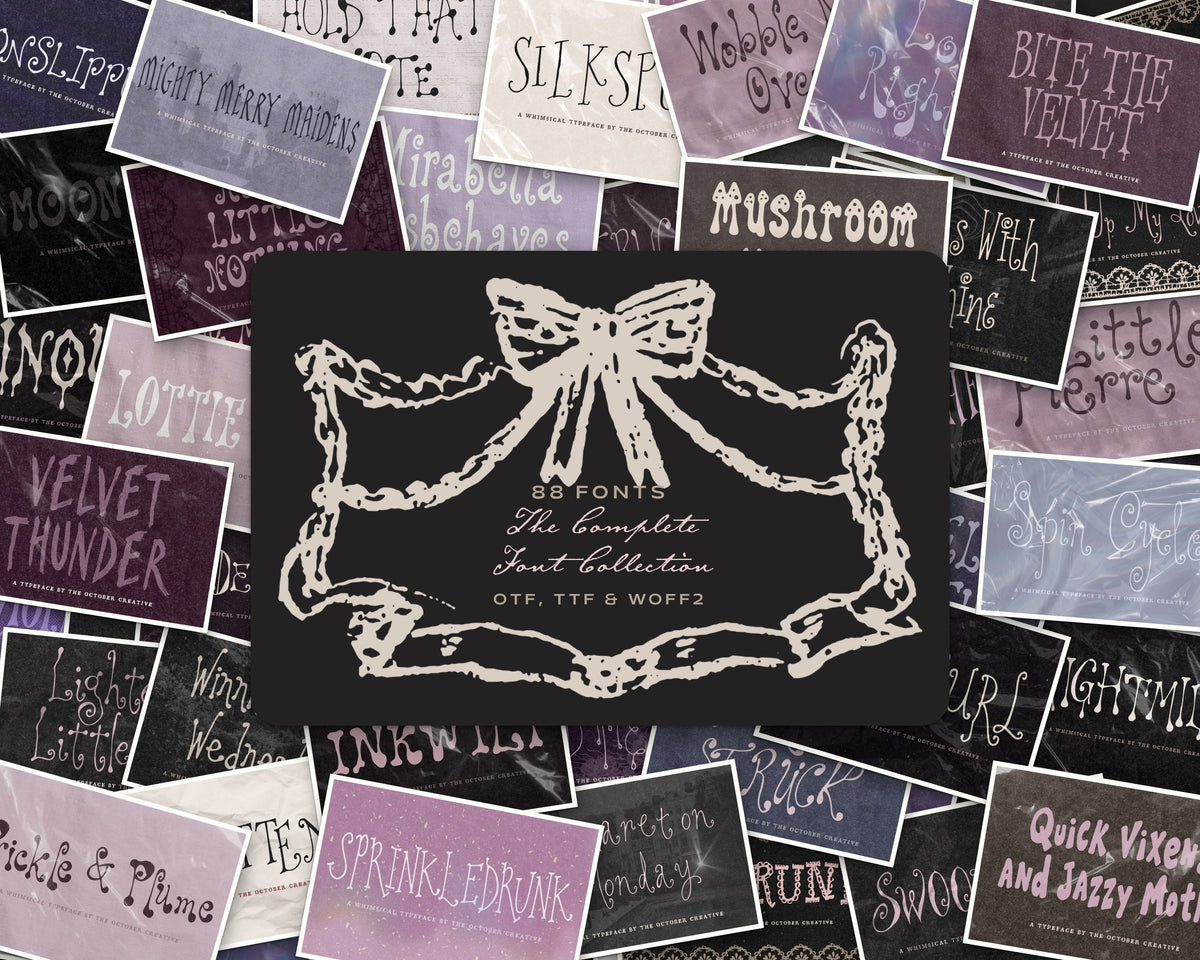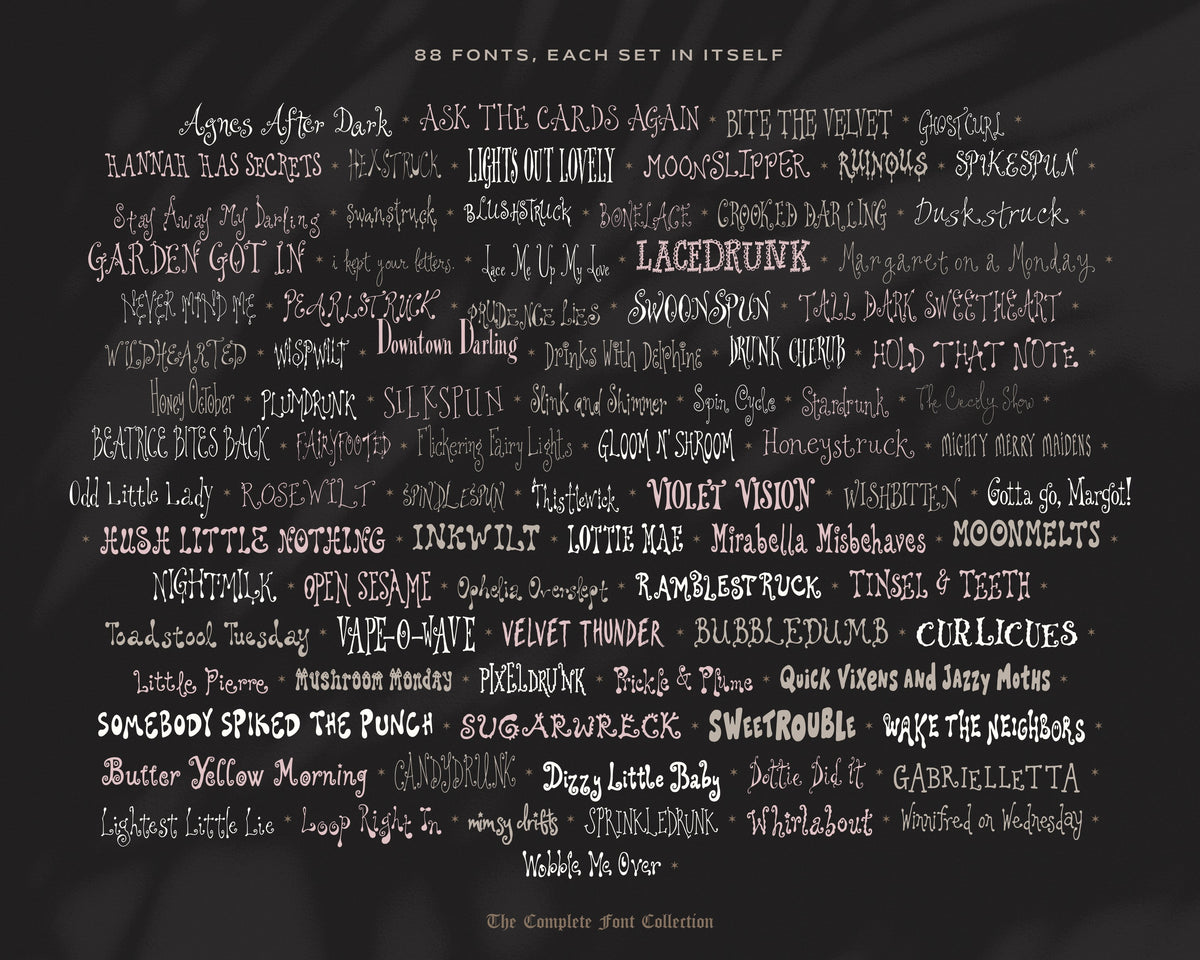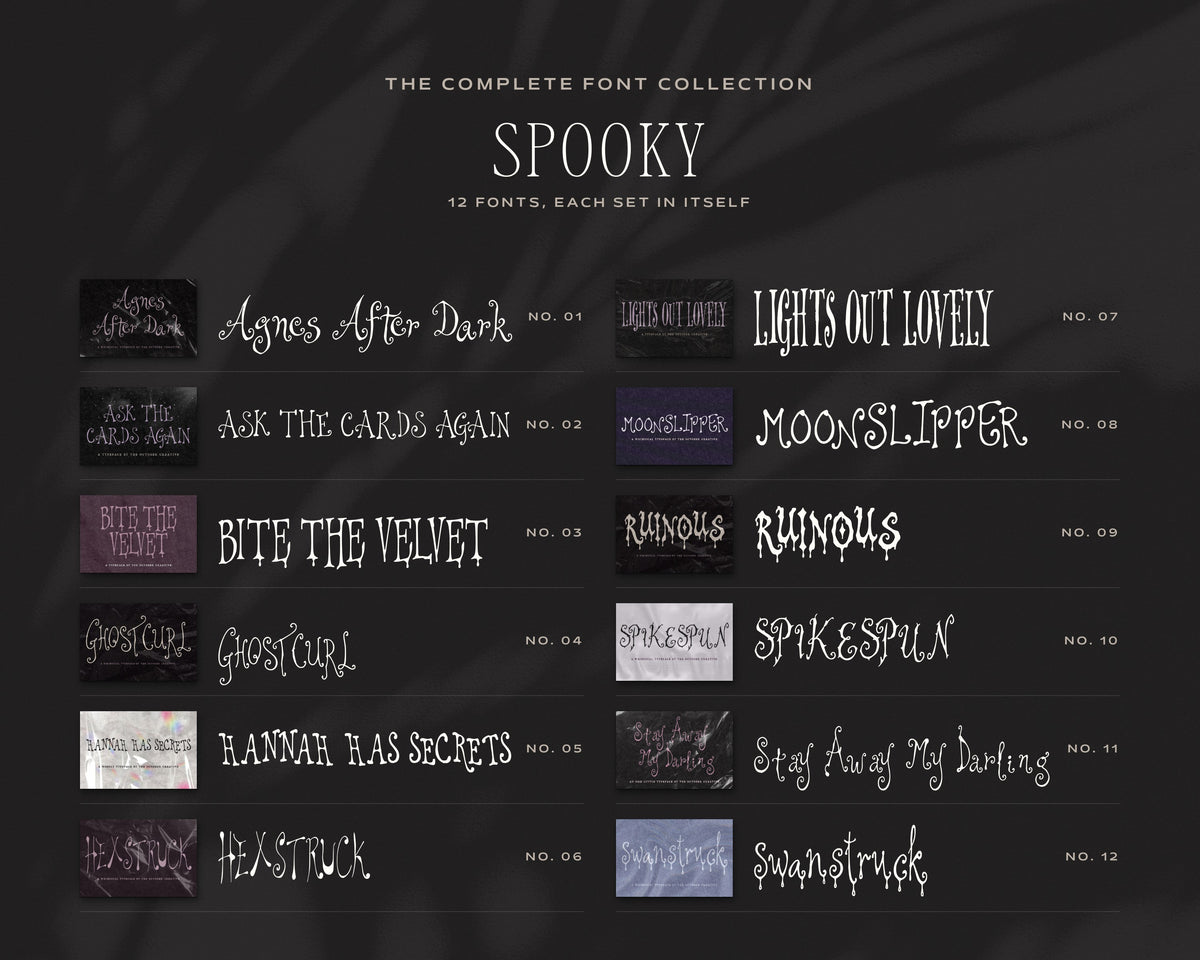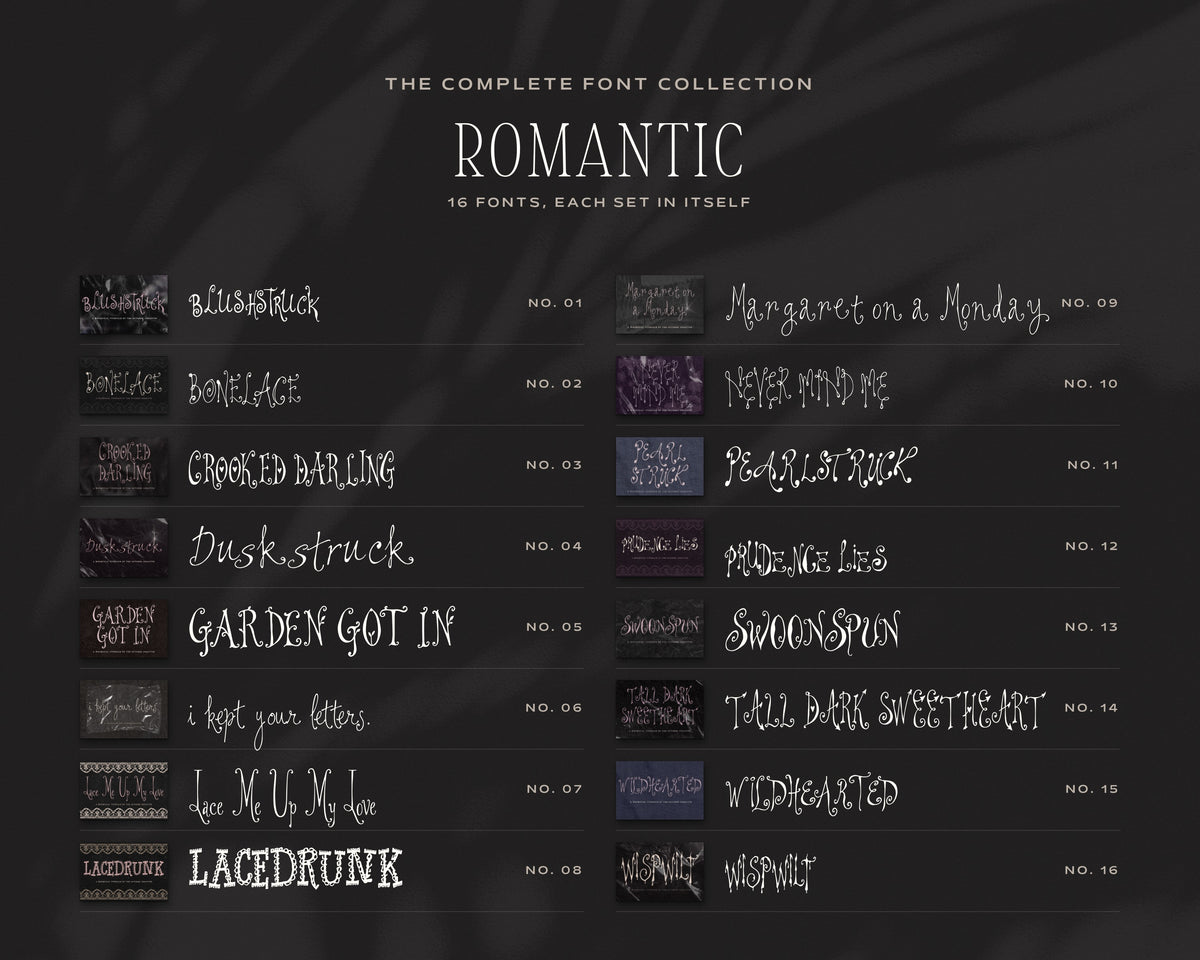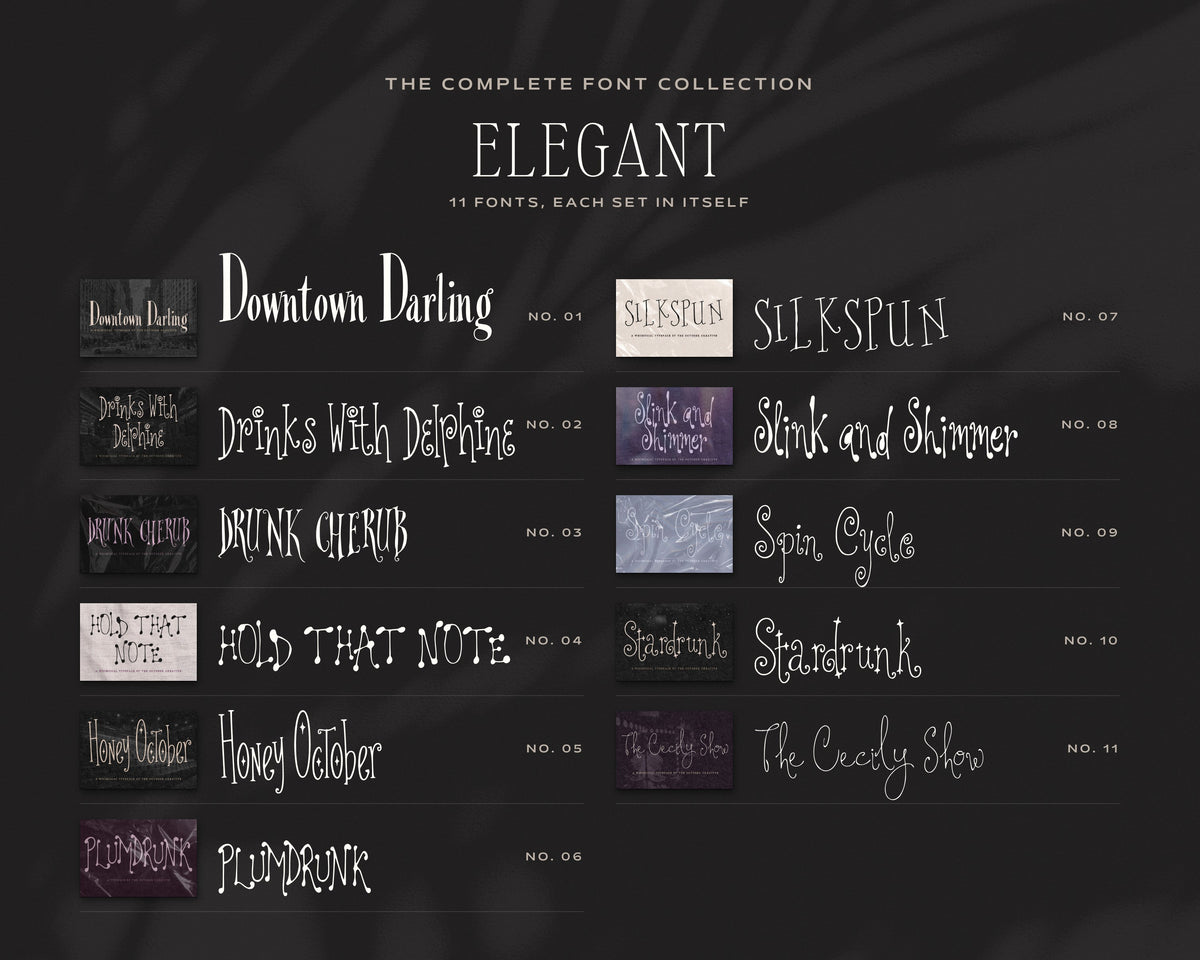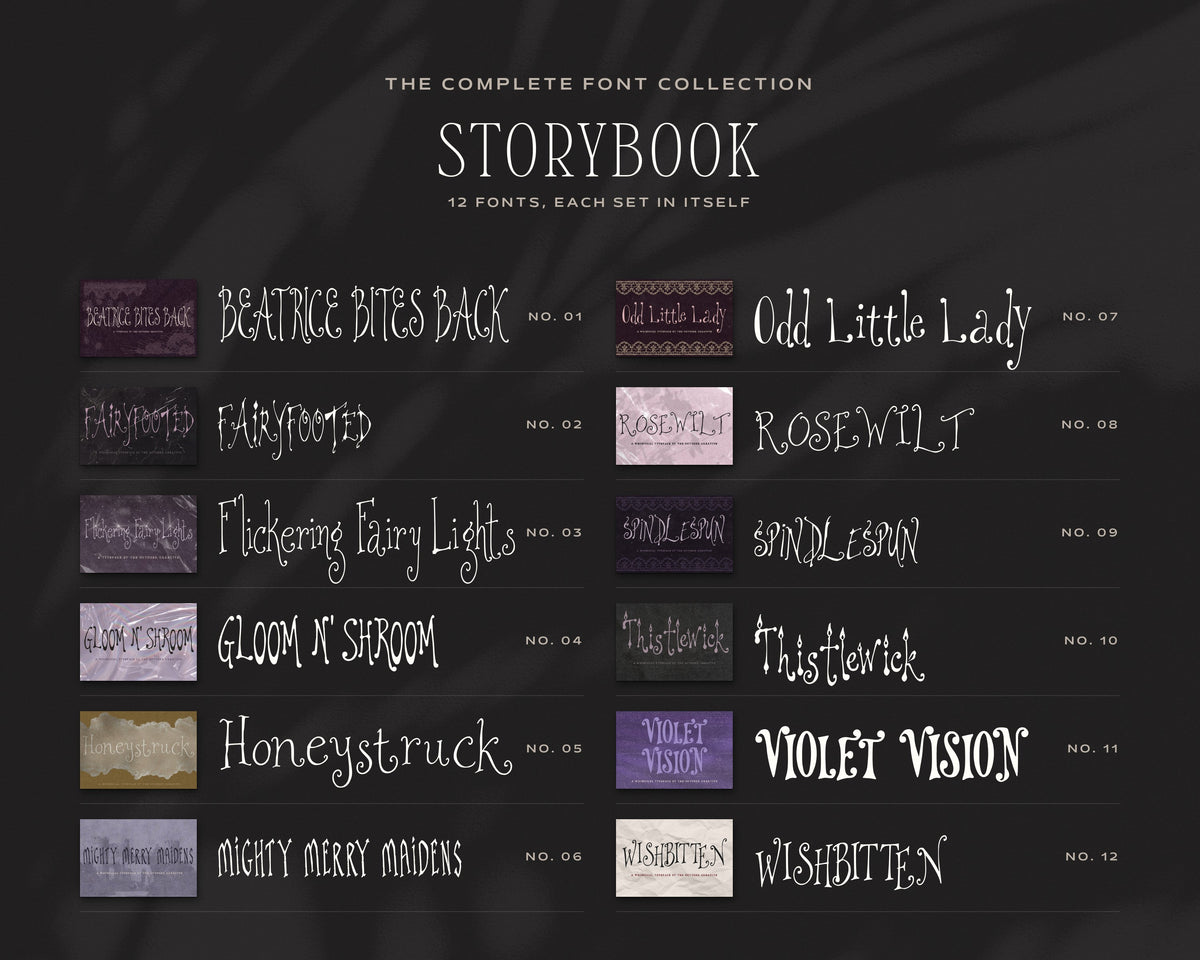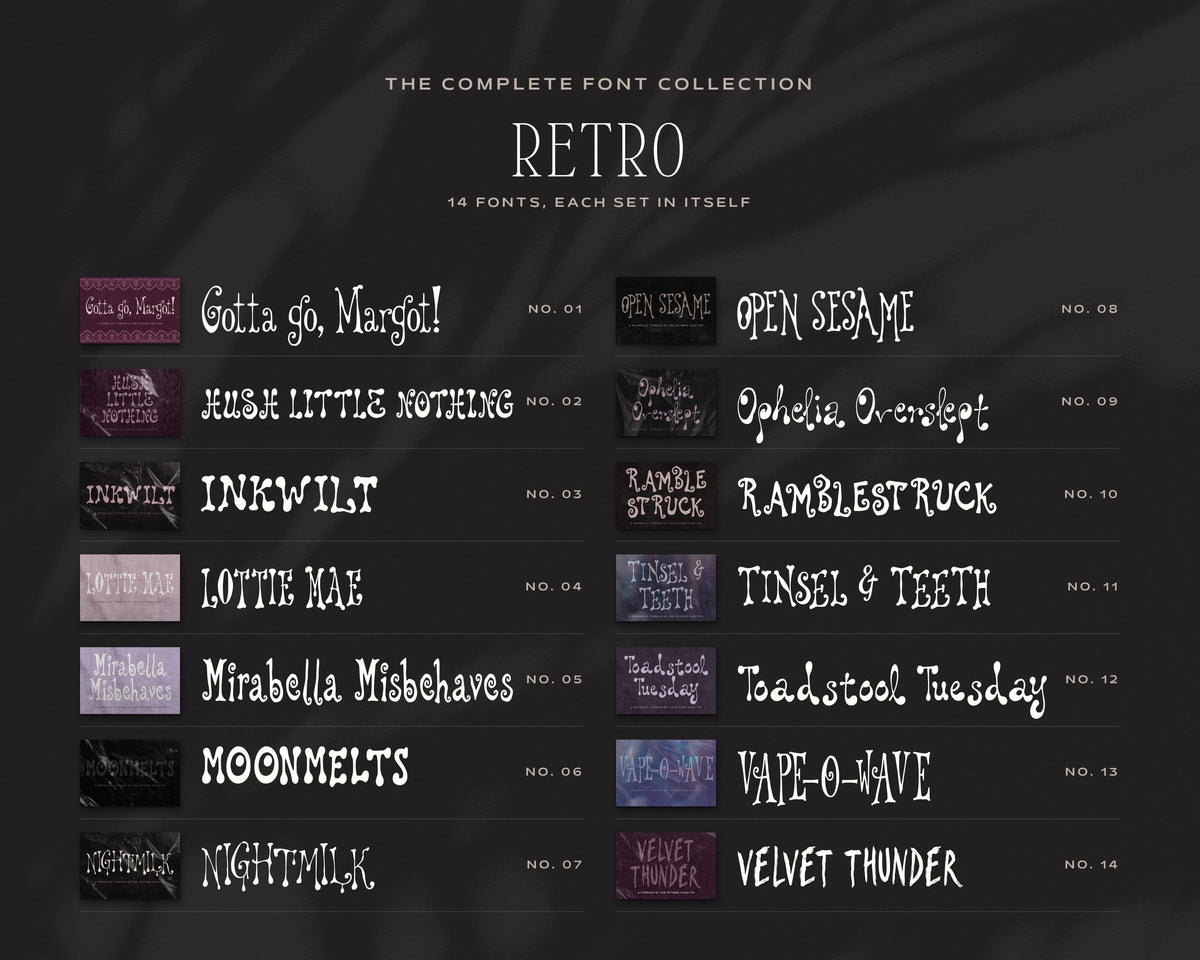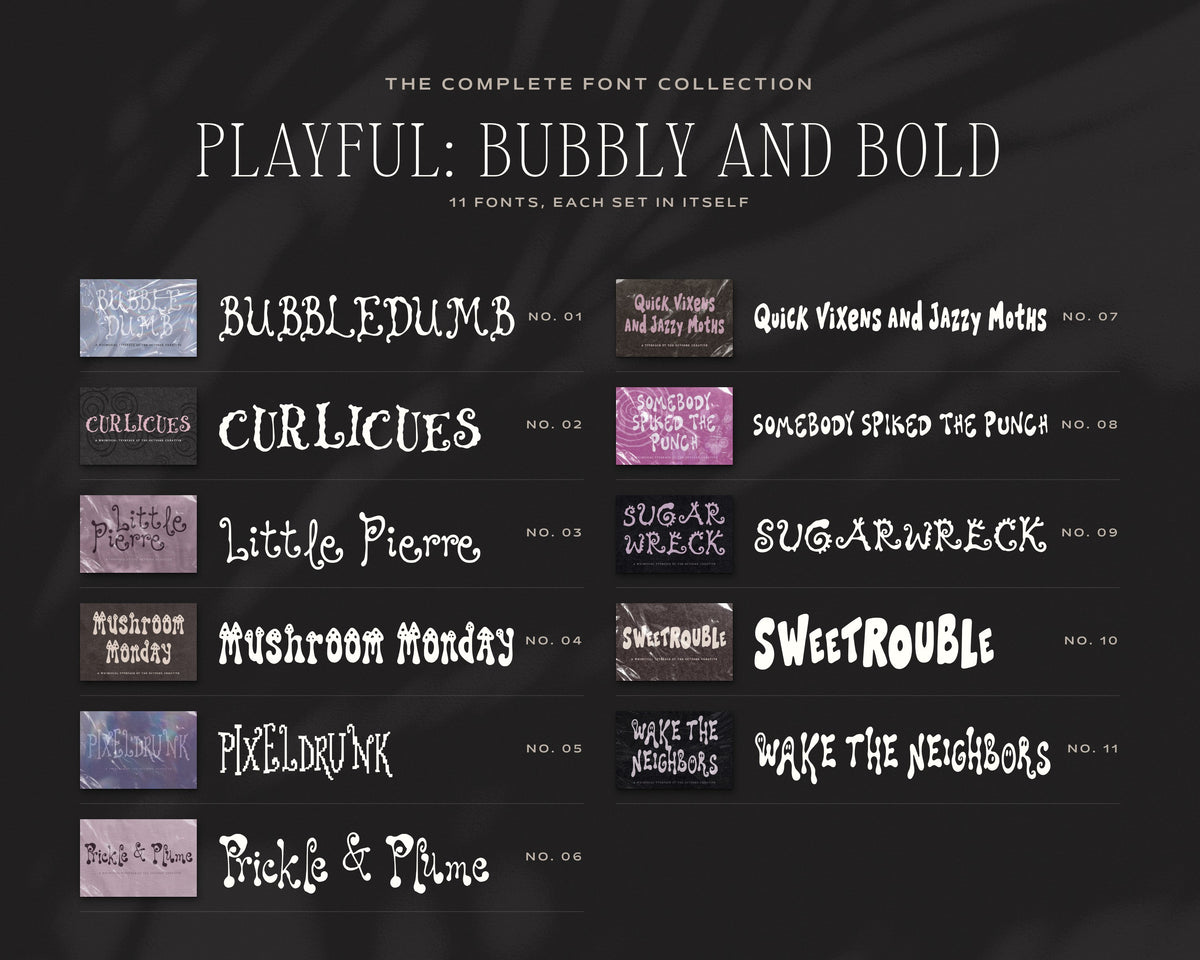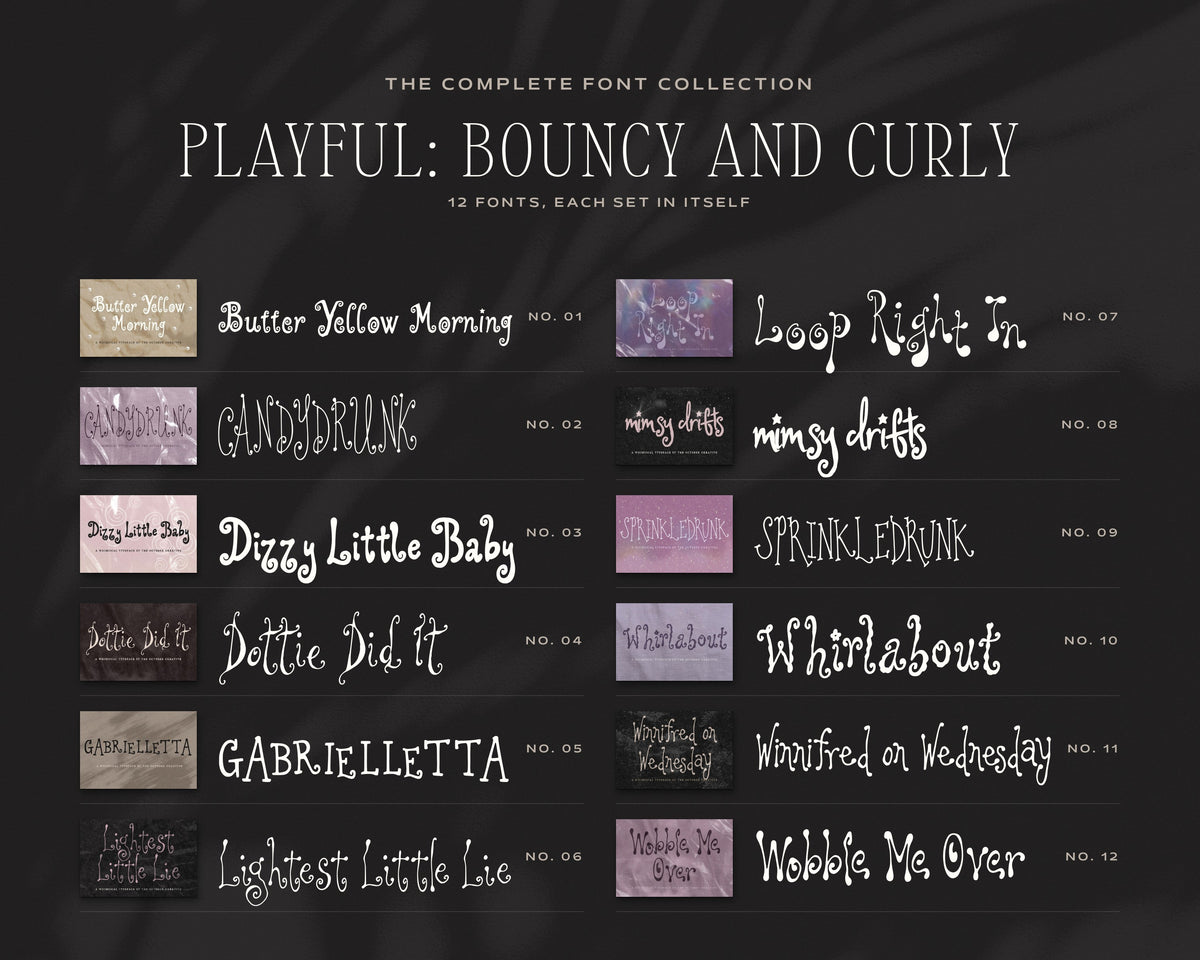
The Complete Font Collection
All 88 fonts in the shop in one download, sorted into folders by mood: spooky, romantic, elegant, storybook, retro, and playful. It covers everything from dripping Halloween capitals and lace-trimmed wedding lettering to groovy retro letters and bubbly party type. Use them across invitations, party signs, menus, labels, prints, and product packaging.
• Fonts sorted into folders by mood
• Uppercase, lowercase, numbers, standard keyboard punctuation, and common accented letters for names. Some are capitals-only designs.
The fonts
• Spooky: Agnes After Dark, Ask the Cards Again, Bite the Velvet, Ghostcurl, Hannah Has Secrets, Hexstruck, Lights Out Lovely, Moonslipper, Ruinous, Spikespun, Stay Away My Darling, Swanstruck
• Romantic: Blushstruck, Bonelace, Crooked Darling, Duskstruck, Garden Got In, I Kept Your Letters, Lace Me Up My Love, Lacedrunk, Margaret on a Monday, Never Mind Me, Pearlstruck, Prudence Lies, Swoonspun, Tall Dark Sweetheart, Wildhearted, Wispwilt
• Elegant: Downtown Darling, Drinks With Delphine, Drunk Cherub, Hold That Note, Honey October, Plumdrunk, Silkspun, Slink and Shimmer, Spin Cycle, Stardrunk, The Cecily Show
• Storybook: Beatrice Bites Back, Fairyfooted, Flickering Fairy Lights, Gloom N' Shroom, Honeystruck, Mighty Merry Maidens, Odd Little Lady, Rosewilt, Spindlespun, Thistlewick, Violet Vision, Wishbitten
• Retro: Gotta Go, Margot!, Hush Little Nothing, Inkwilt, Lottie Mae, Mirabella Misbehaves, Moonmelts, Nightmilk, Open Sesame, Ophelia Overslept, Ramblestruck, Tinsel & Teeth, Toadstool Tuesday, Vape-O-Wave, Velvet Thunder
• Playful (bubbly and bold): Bubbledumb, Curlicues, Little Pierre, Mushroom Monday, Pixeldrunk, Prickle & Plume, Quick Vixens and Jazzy Moths, Somebody Spiked the Punch, Sugarwreck, Sweetrouble, Wake the Neighbors
• Playful (bouncy and curly): Butter Yellow Morning, Candydrunk, Dizzy Little Baby, Dottie Did It, Gabrielletta, Lightest Little Lie, Loop Right In, Mimsy Drifts, Sprinkledrunk, Whirlabout, Winnifred on Wednesday, Wobble Me Over